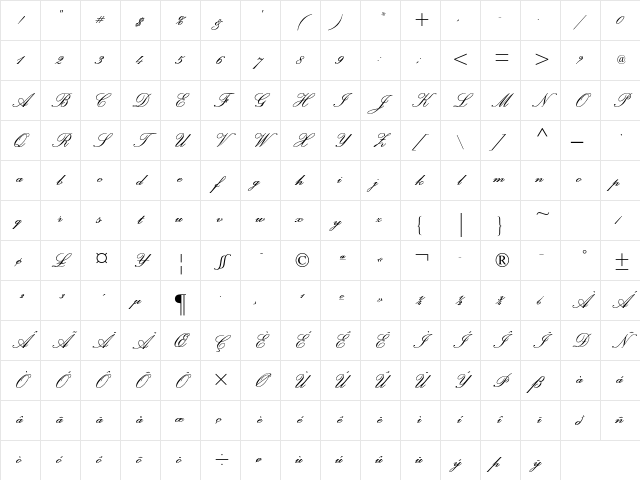
Complete Palace Script MT Std Semibold glyph index. Displaying only characters natively supported by Palace Script MT Std Semibold font.
Palace Script MT Std flows with the natural rhythm of handwritten lettering, making it ideal for designs that call for warmth and personal expression. Its bold stroke weight gives it real presence on the page.